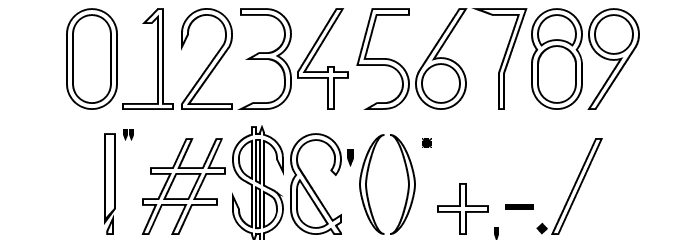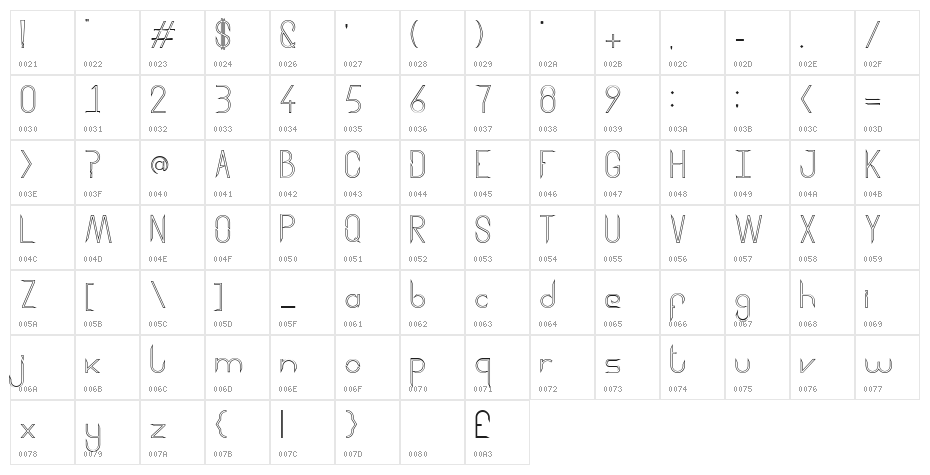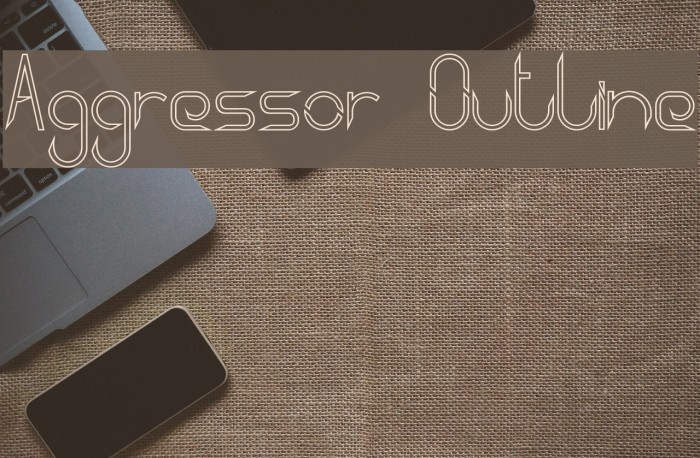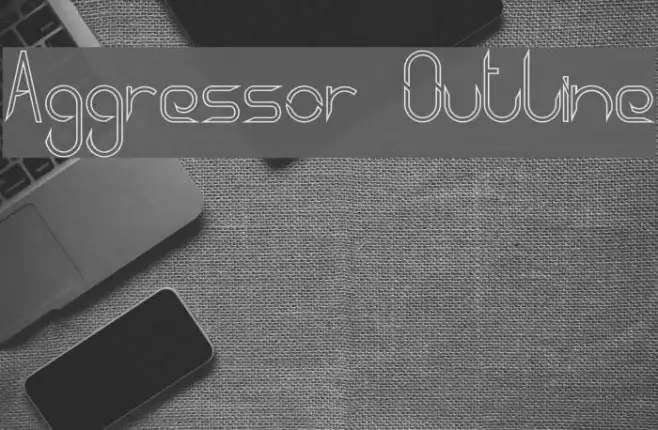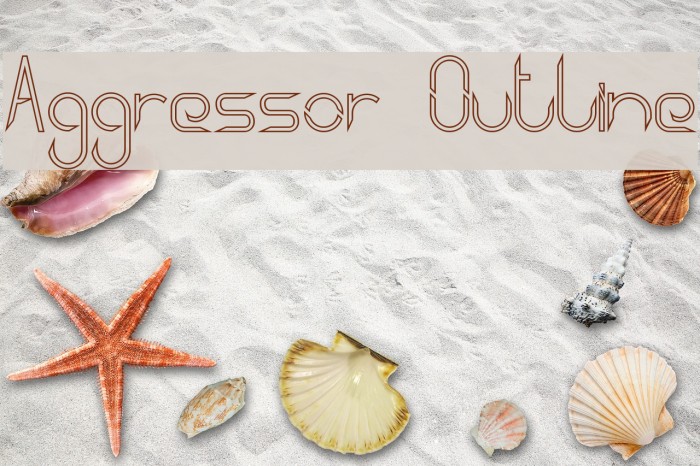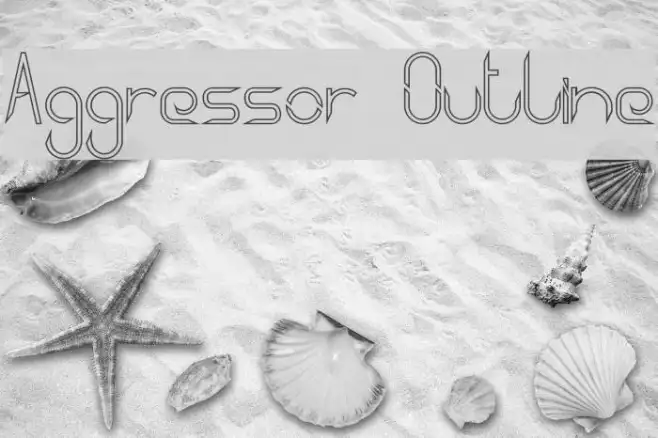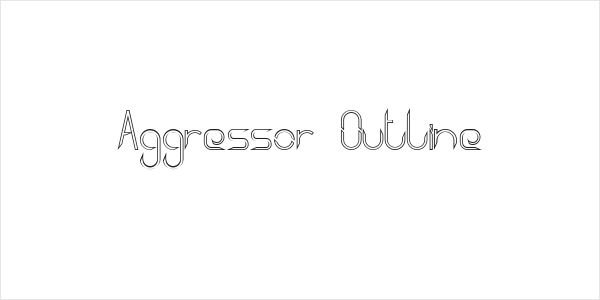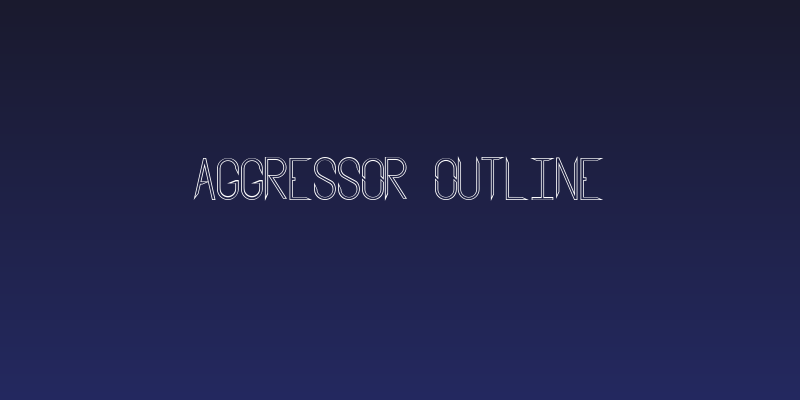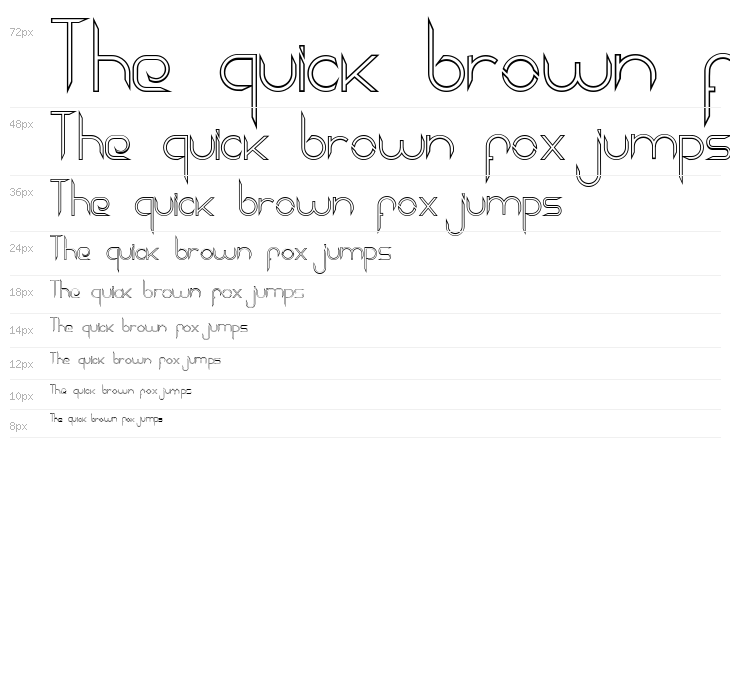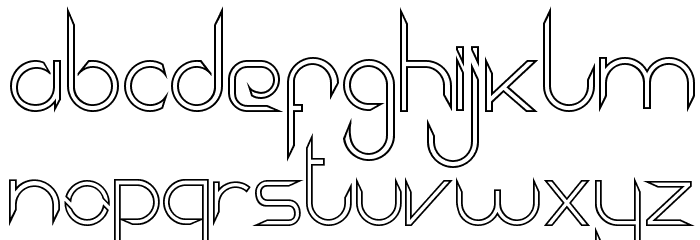
Aggressor Outline Font
Aggressor Outline Description
This font features a unique outline style with a futuristic and edgy appearance. The characters are constructed with sharp angles and geometric forms, giving it a distinct and modern look. The uppercase letters are bold and commanding, while the lowercase letters maintain a consistent style with a slightly softer edge. Numbers and special characters follow the same design principles, ensuring uniformity across all glyphs. The outline nature of the font provides a sense of openness and space, making it suitable for creative and eye-catching designs.
| Proposed Projects | Ideal for sci-fi themed designs, posters, album covers, and branding that requires a modern and edgy look. |